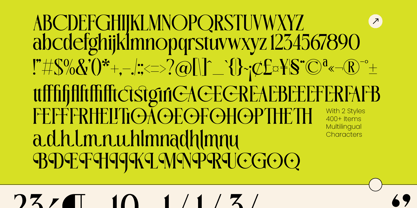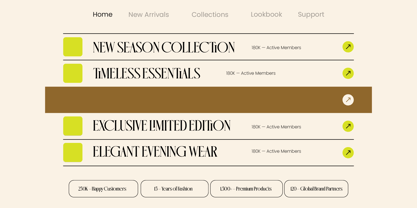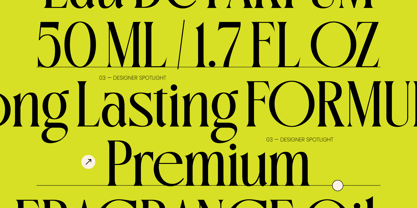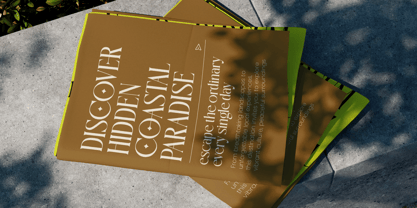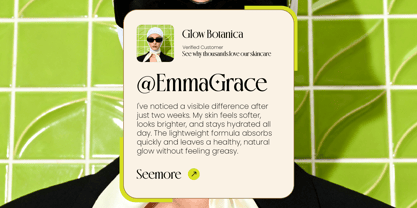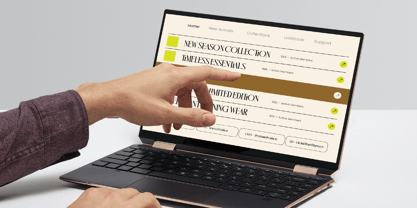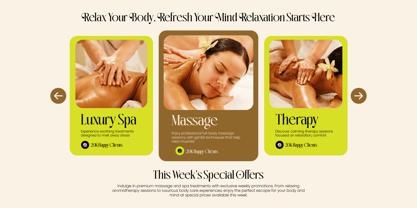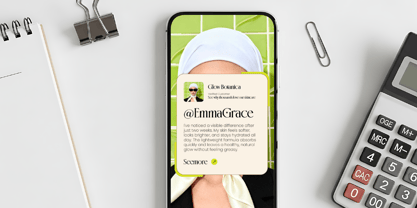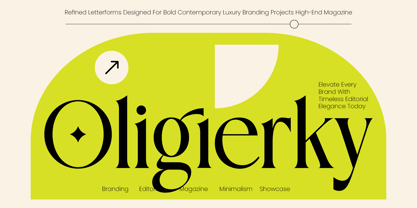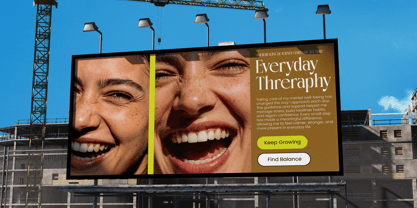
Oligierky
La familia tipográfica Oligierky fue diseñada por Heru Utama Putra y publicada por Timelesstype Studio. Oligierky contiene 2 estilos y opciones de paquete familiar. Más información sobre esta familia
Elevate your design aesthetic with a typeface that embodies sophisticated modernism and contemporary elegance. Oligierky - Modern Editorial Serif is a masterfully crafted high-contrast serif that balances sharp, refined edges with graceful, flowing curves. This luxury display typeface is designed to command attention while maintaining a sense of timeless poise, making it an essential asset for any premium creative toolkit.